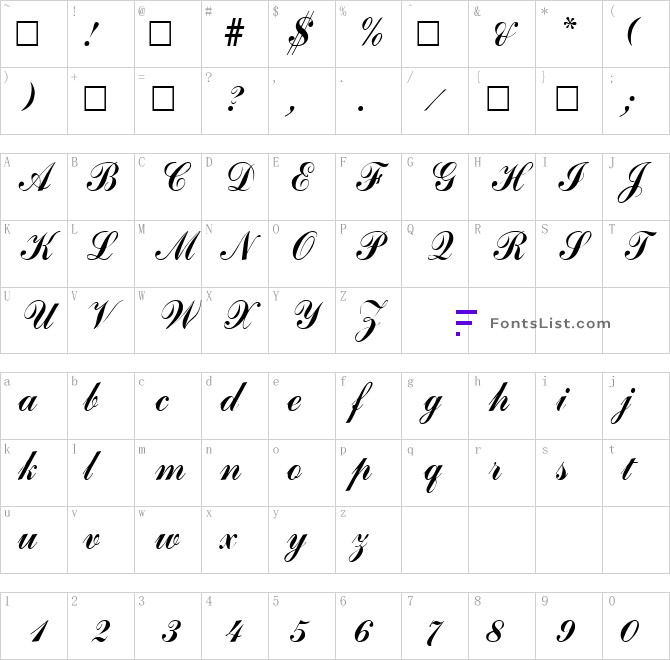
Author.ttf is a very beautiful artistic font, Author.ttf is widely used in the design and printing of various books and pictures,Author.ttf has a strong visual impact,Author.ttf is a commonly used font in newspapers, magazines and books, and is used in posters, e-commerce Poster design, store design, logo design, font design and other fields.Author.